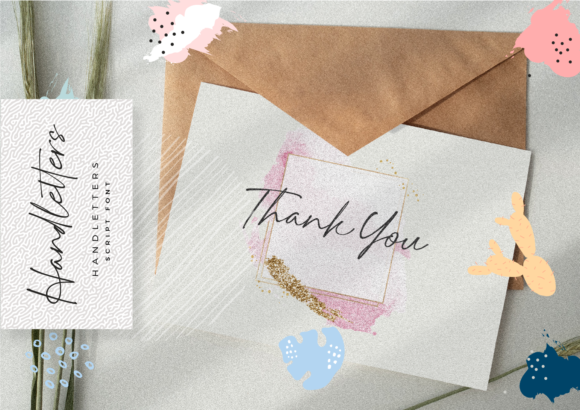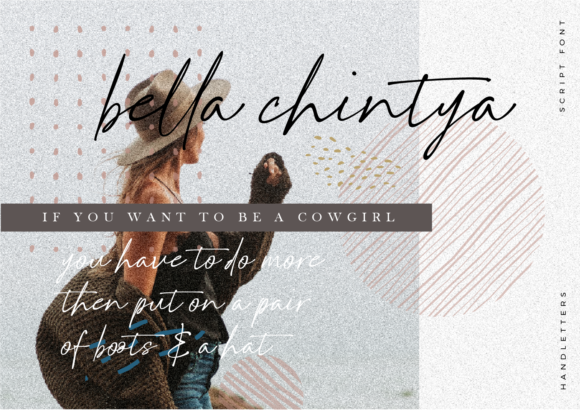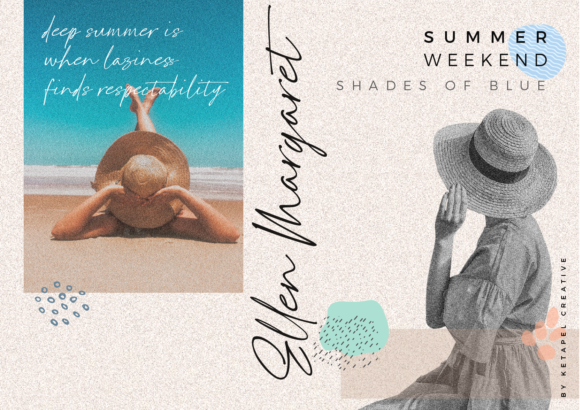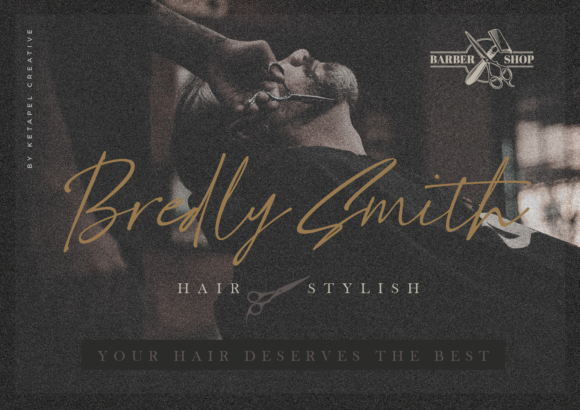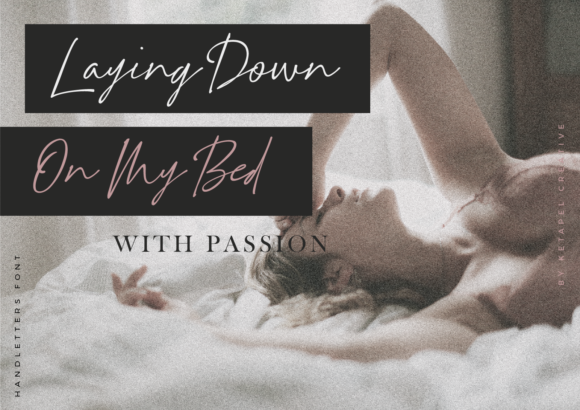
About Handletters Font
Handletters is an exquisite and timeless handwritten font that exudes elegance and charm. Its distinct style and delicate touch make it the perfect choice for a wide range of design projects, adding a personal and artistic flair to any creative idea. Here are some ways to showcase the beauty of Handletters and incorporate it into your designs:
1. Wedding Invitations: Design elegant and sophisticated wedding invitations with Handletters, setting the tone for a romantic and unforgettable celebration.
2. Thank You Cards: Craft heartfelt thank you cards, expressing gratitude with the enchanting allure of Handletters.
3. Quotes and Typography Art: Create captivating typography art and quote posters, combining inspiring messages with the artistic charm of Handletters.
4. Greeting Cards: Design warm and artistic greeting cards for various occasions, captivating recipients with the timeless beauty of Handletters.
5. Branding and Logos: Utilize Handletters for branding elements, infusing your business identity with a unique and personal handwritten style.
6. Personal Stationery: Elevate your personal stationery with the distinctive beauty of Handletters, making each note or letter a work of art.
7. Book Covers: Apply Handletters to book covers, adding a touch of artistic elegance to the visual representation of your literary works.
8. Social Media Graphics: Create eye-catching and engaging social media graphics with Handletters, capturing your audience’s attention with its timeless charm.
9. Magazine Headlines: Use Handletters for magazine headlines, adding an elegant and artistic touch to editorial layouts.
10. Event Invitations: Design exclusive and sophisticated event invitations, capturing the distinct allure of Handletters for special gatherings.
11. Art Prints: Feature Handletters in art prints, producing enchanting and timeless pieces that resonate with art enthusiasts.
12. Packaging and Labels: Enhance product packaging and labels with the captivating beauty of Handletters, elevating the presentation of your offerings.
13. Website and Blog Headers: Implement Handletters in website banners and blog headers, infusing your online platform with a touch of artistic elegance.
14. Signage and Displays: Utilize Handletters for signage and displays, making an artistic statement in various settings.
15. Invitations and Announcements: Create charming and memorable invitations and announcements, embracing the timeless allure of Handletters.
The distinct and delicate nature of Handletters make it a versatile font that complements various designs. Its timeless beauty and personal touch will leave a lasting impression on your audience and elevate your designs to new levels of sophistication and allure. Whether used for formal events or creative projects, Handletters will add a touch of elegance and charm to your designs, creating a captivating visual experience for your audience.